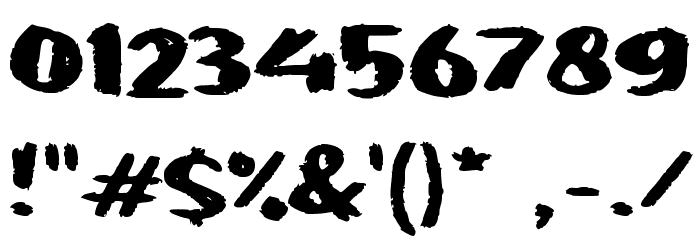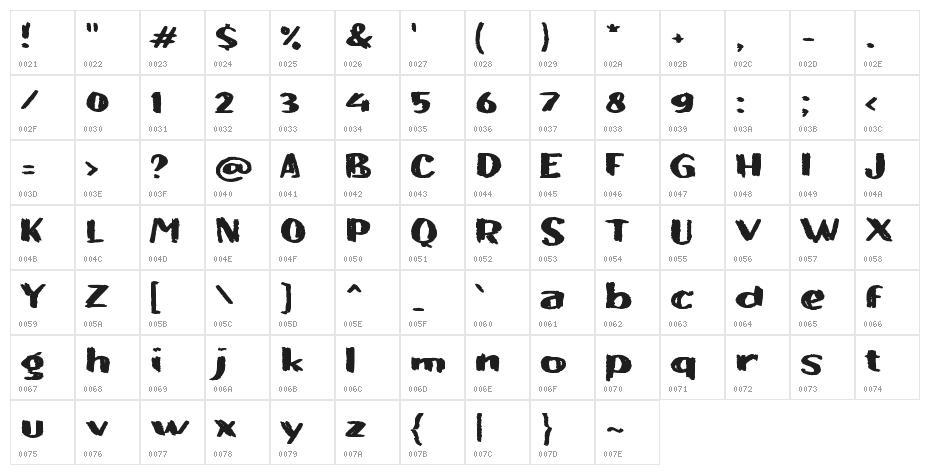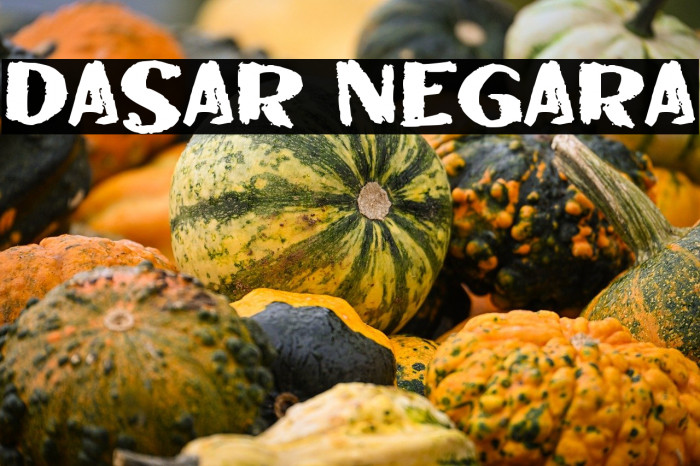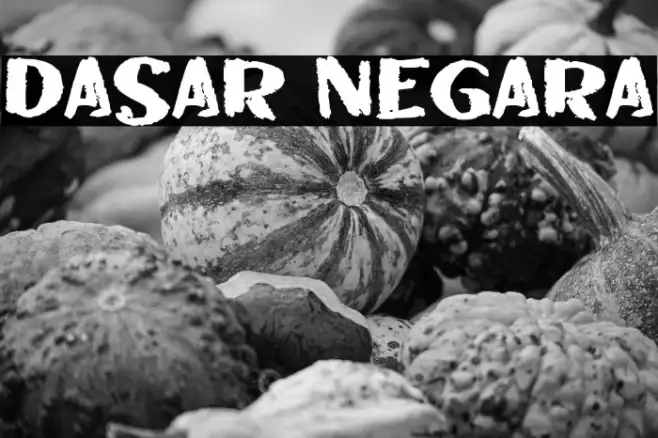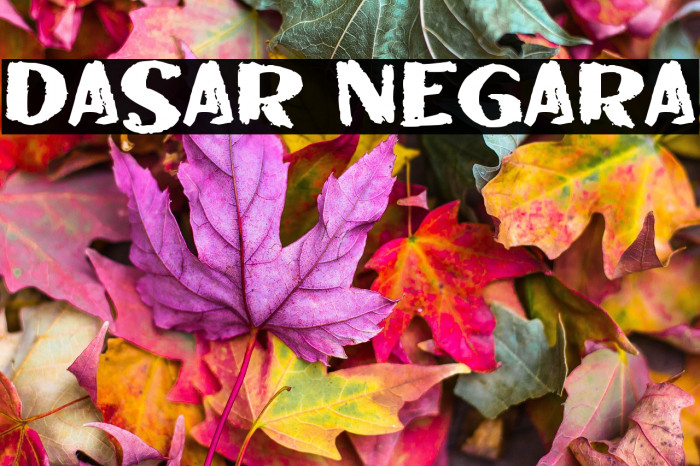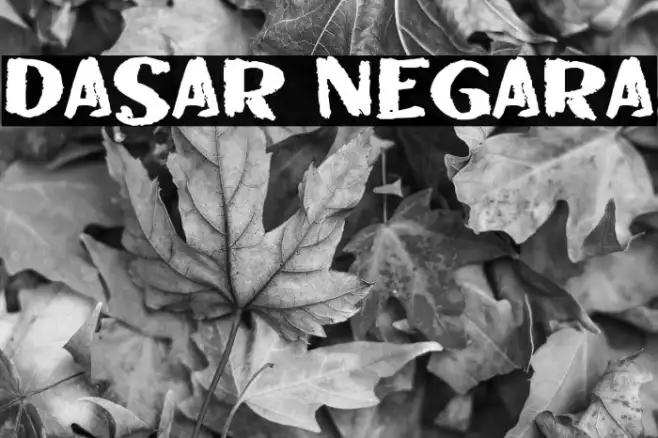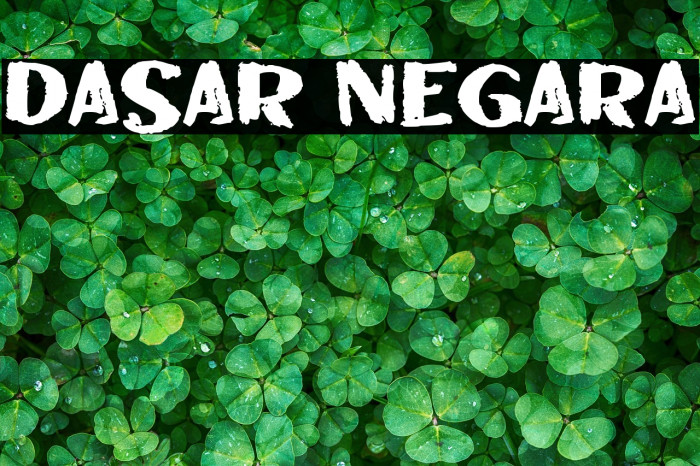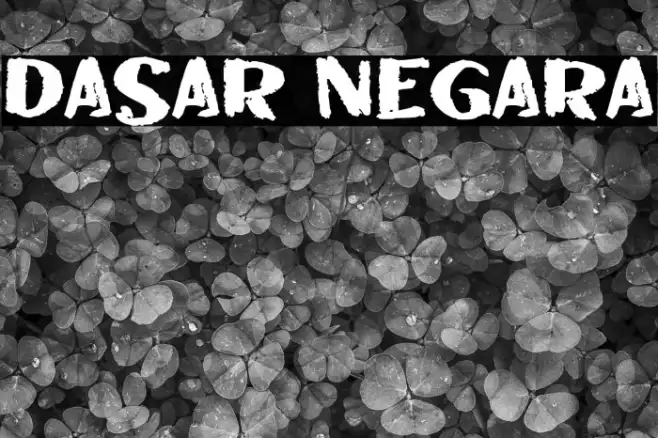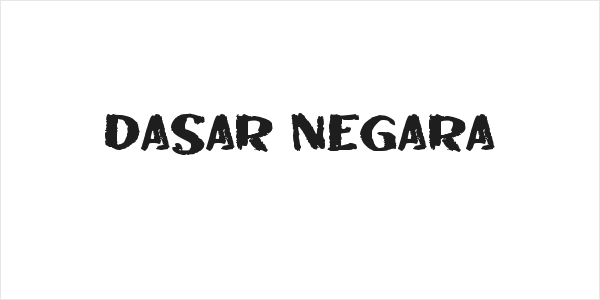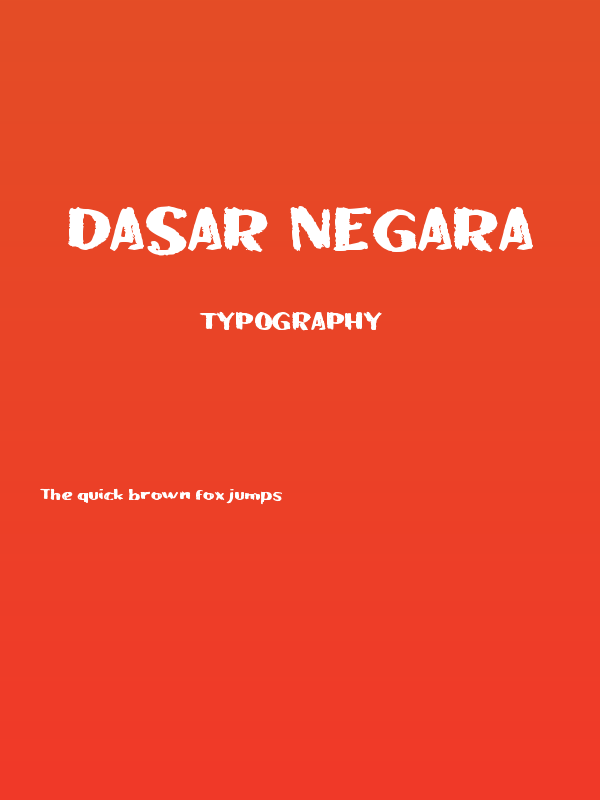
DASAR NEGARA Font
DASAR NEGARA Description
This font features a bold and expressive brush style, characterized by its rough, textured strokes that give it a hand-painted appearance. The uppercase and lowercase letters maintain a consistent thickness, creating a cohesive look across the alphabet. The numbers and special characters follow the same stylistic approach, ensuring uniformity. The font's organic and dynamic nature makes it stand out, offering a sense of creativity and energy. Its boldness and unique texture make it suitable for projects that require a strong visual impact.
| Proposed Projects | Ideal for posters, branding, packaging, and artistic projects that require a bold, creative touch. |